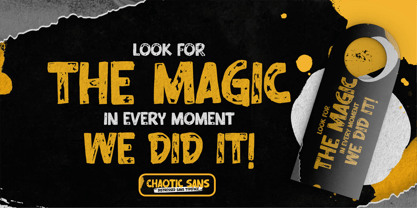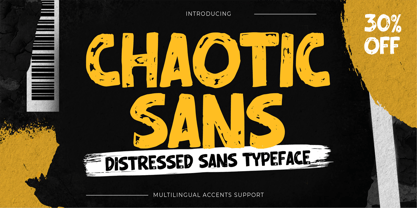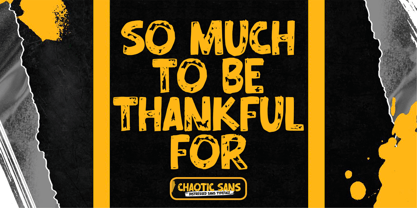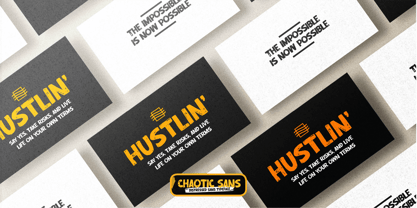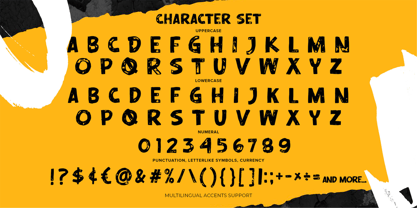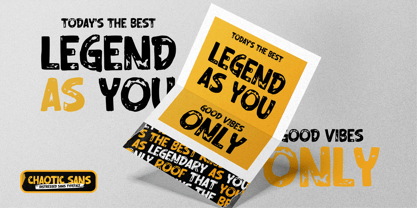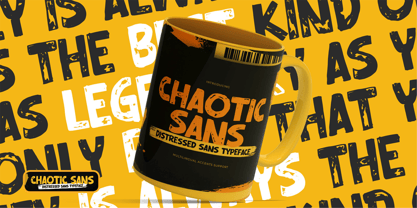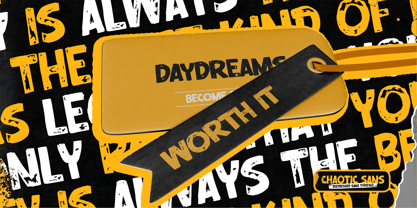
Chaotic Sans
by Almarkha Type
The Chaotic Sans Font Family was designed by Abdul Malik Wisnu and published by Almarkha Type. Chaotic Sans contains 1 styles. More about this family
Here comes a New font, Chaotic Sans is s - Distressed Display Sans that is written casually and quickly. Letters are made with brushes on Procreate. Then crafted carefully drawn into vector format. That is why Chaotic Sans has Stylish and strong characteristic more natural look to your text with a more modern look to your text. Chaotic Sans is perfect for homeware designs,branding projects, Logo design, Quotes product packagingprinted quotes, invitations, cards, product packaging, headers, Logotype, Letterhead, PosterLabel, cartoon, and comic etc.
Designers: Abdul Malik Wisnu
Foundry: Almarkha Type